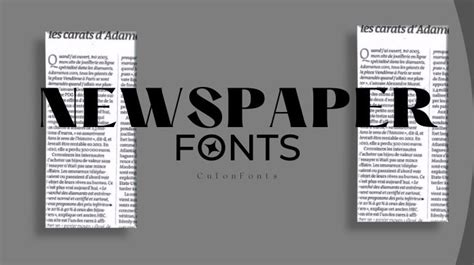
Free Font Downloads For News
Free Font Downloads for News
Hey guys, welcome back! Today, we’re diving deep into the exciting world of news fonts . You know, those killer typefaces you see gracing the headlines of your favorite newspapers and online publications. Ever wondered where you can snag some awesome fonts for your own news-related projects without breaking the bank? Well, you’re in the right place! Finding the perfect news font download free can be a game-changer. It’s not just about making your content look pretty; it’s about conveying the right tone, grabbing attention, and ensuring readability. Think about it – a bold, impactful font can scream urgency and importance, while a more classic, serif font might evoke a sense of trust and tradition. The font you choose speaks volumes before a single word is even read.
We’re going to explore a bunch of fantastic resources where you can download high-quality fonts for free. Whether you’re a budding journalist, a blogger, a graphic designer working on a news outlet’s branding, or just someone who loves playing with typography, this guide is packed with value. We’ll cover everything from where to find them, what to look for in a good news font, and some top picks that are absolute must-haves for your digital toolkit. So, buckle up, and let’s get your content looking sharp and professional with some amazing free fonts!
Why Choosing the Right News Font Matters
Alright, let’s chat about why the font you pick for your news content is such a big deal. Seriously, guys, it’s way more than just aesthetics. Think about the last time you saw a headline that just popped . Chances are, it was a combination of compelling words and a killer font. News font download free options are plentiful, but not all fonts are created equal, especially when it comes to the demands of news reporting. The primary goal of news is to inform, and your typography needs to support that mission. Readability is king here. Imagine trying to read a breaking news article riddled with tiny, ornate script fonts – it would be a nightmare! Your audience needs to be able to scan headlines quickly and read body text comfortably, even on smaller screens. This is where sans-serif fonts often shine, with their clean lines and straightforward appearance. They are generally easier to read at small sizes and across various digital platforms. On the other hand, serif fonts, with their little decorative strokes, can add a touch of gravitas and authority, making them a solid choice for more formal publications or opinion pieces. The contrast between headlines and body text is also crucial. A strong, attention-grabbing font for the headline can immediately signal the importance of the story, while a more subdued, highly readable font for the main content ensures the message gets across clearly without distraction. Color and weight also play huge roles. A bold weight can create emphasis, while italics can be used for specific purposes like quotes or foreign words. Ultimately, the font you choose sets the tone and influences how your audience perceives the information. It’s about building trust, establishing credibility, and making your content accessible to everyone. So, investing a little time to find the right font, even a free news font download , can make a massive difference in how your message is received and remembered. It’s the unsung hero of effective communication in the fast-paced world of news.
3. DaFont / UrbanFonts / 1001 Fonts:
These three are similar in that they host a massive amount of fonts, but you need to be a little more careful here, guys. While they offer tons of free news font download options, many are for personal use only. Always, always check the license agreement for each font before using it commercially. That said, these sites are incredible for exploring different styles and finding unique, sometimes quirky, fonts that might not be on the bigger platforms. You can find everything from classic newspaper-style serifs to modern, edgy sans-serifs. For news, you might explore categories like ‘Serif’, ‘Sans Serif’, or ‘Display’. Just remember to filter for ‘100% Free’ or check the individual licenses carefully. They are great for brainstorming and finding that perfect, less common font that can make your news content stand out. Think of them as the wild west of free fonts – full of potential, but requires a bit of caution!
4. Behance / Dribbble (Font Foundries):
Don’t underestimate the power of design communities like Behance and Dribbble . Many talented type designers share their work here, and sometimes, they release free versions or full families of their fonts. You often have to do a bit more digging, searching for terms like “free font,” “typeface,” or “font family,” but the rewards can be huge. Designers often release these free fonts as a way to showcase their skills, and you can find some incredibly unique and professionally crafted typefaces. Keep an eye out for designers who explicitly state the font is free for commercial use. It’s a fantastic way to discover cutting-edge typography that hasn’t hit the mainstream yet. This is where you might find that distinctive font that gives your news outlet a truly unique visual identity. Just remember to verify the licensing – sometimes the free version is a demo, or limited in some way.
Top Free Fonts for News Content: Our Picks!
Alright, we’ve talked about why fonts matter and where to find them. Now, let’s get to the good stuff: specific font recommendations! When you’re looking for a free news font download , you want something that screams professionalism, readability, and impact. These are fonts that have been tried and tested in the news world, and thankfully, they’re available for free. We’ve picked a mix of serif and sans-serif styles to give you versatility for headlines, subheadings, and body text. Get ready to add some serious powerhouses to your typography arsenal, guys!
Sans-Serif Fonts: Clean, Clear, and Modern
Sans-serif fonts are often the backbone of modern news design due to their incredible readability, especially on screens. They lack the small decorative strokes (serifs) found on serif fonts, giving them a clean, uncluttered look. This makes them perfect for scanning quickly, which is essential for news consumption.
1. Roboto (Google Fonts):
Why we love it: Roboto is the quintessential modern sans-serif. Developed by Google, it’s designed to be neutral and highly readable across all platforms and screen sizes. It strikes a beautiful balance between geometric shapes and friendly, open curves. It feels contemporary without being trendy, meaning it won’t look dated quickly. Roboto comes in a huge range of weights, from Thin to Black, offering incredible flexibility. For news, the Regular and Medium weights are fantastic for body text, while Bold or Black can make headlines pop. Its clean lines ensure legibility even at smaller sizes, making it ideal for online news articles, mobile apps, and even infographics. You can download Roboto free from Google Fonts. It’s the kind of font that just works , no matter the context, making it a go-to for many designers and news outlets.
2. Open Sans (Google Fonts):
Why we love it: Another Google Fonts superstar, Open Sans is renowned for its humanist characteristics, meaning it feels a bit more natural and less mechanical than some other sans-serifs. Its optimized legibility, even in unfamiliar situations or with less-than-ideal display resolutions, makes it a top choice for news. It has a friendly, approachable feel, which can be great for building reader connection. Like Roboto, it offers a comprehensive set of weights and styles. Use its lighter weights for subheadings and its bolder counterparts for impactful headlines. It’s versatile enough for everything from digital news sites to print publications. The availability of a free news font download for Open Sans is a huge win for content creators on a budget.
3. Lato (Google Fonts):
Why we love it: Lato, which means “summer” in Polish, has a warm, semi-rounded feel that makes it incredibly inviting. It’s simultaneously classic and modern. While it feels structured and serious enough for news, its subtle curves give it a touch of personality that keeps it from feeling sterile. It has excellent clarity and is available in various weights, making it suitable for everything from main headlines to small print captions. If you’re aiming for a clean, approachable, and highly readable news site, Lato is a phenomenal free font download option. It’s robust and reliable, much like good journalism should be!
4. Montserrat (Font Squirrel):
Why we love it: Inspired by the old posters and signs in the traditional Montserrat neighborhood of Buenos Aires, this font has a geometric, urban feel. It’s strong, distinctive, and comes in a wide array of weights. Montserrat is particularly effective for headlines because of its bold presence. It feels modern and sophisticated, perfect for a news outlet that wants to project a contemporary image. While its bolder weights are excellent for display, its lighter weights can also work for shorter blocks of text. Font Squirrel makes it easy to download Montserrat free for commercial use, so you can confidently use it across your news projects.
Serif Fonts: Authority, Tradition, and Readability
Serif fonts bring a sense of tradition, authority, and timelessness to any design. They often evoke a feeling of trust and gravitas, making them a classic choice for many established news publications. While sometimes seen as more traditional, many modern serifs offer excellent readability on screen.
1. Merriweather (Google Fonts):
Why we love it: Merriweather is a typeface designed to be a text face – meaning it’s specifically optimized for reading on screens. It’s a very pleasant serif font that feels familiar yet distinct. It has a slightly condensed structure, which helps fit more text into a line, improving readability in dense articles. Its sturdy serifs and open counterforms (the enclosed or partially enclosed areas in letters) ensure clarity even at small sizes. It’s perfect for body text in online news articles, especially if you want to lend a more classic or editorial feel. You can download Merriweather free from Google Fonts and use it with confidence. It’s a solid choice for building credibility and providing a comfortable reading experience.
2. Playfair Display (Google Fonts):
Why we love it: If you want a serif font with a bit more flair and elegance, Playfair Display is a fantastic option. It features high contrast between thick and thin strokes, giving it a very fashionable, almost Didone-style look. This makes it absolutely stunning for headlines and titles. It’s particularly good for lifestyle or feature sections of a news site where you want to add a touch of sophistication. While its high contrast might make it less ideal for long body text (especially at small sizes), it’s a star for impactful headlines. Think of it as the font you use when you want your headline to be a statement piece. Grab this free font download from Google Fonts and elevate your news titles!
3. Source Serif Pro (Adobe Fonts / Also available elsewhere):
Why we love it: While technically part of Adobe Fonts (which requires a subscription), Source Serif Pro is often made available freely through other channels or as part of open-source initiatives. It was designed as a companion to the sans-serif Source Sans Pro and shares a similar clarity and readability focus. It’s a highly legible serif that feels modern and clean, avoiding the fussiness of some older serif designs. It’s robust and works well for both headlines and body copy, offering a good balance of tradition and contemporary design. If you can find a free news font download for Source Serif Pro, it’s a seriously strong contender for its versatility and professional feel. It’s designed for readability and impact, making it a great asset for any news content creator.
Tips for Using News Fonts Effectively
Okay, guys, you’ve got the fonts, now let’s talk strategy! Simply downloading a bunch of cool fonts isn’t enough. To truly make your news content shine, you need to use these free news font download treasures wisely. It’s all about creating a hierarchy, ensuring readability, and building a consistent visual identity. Think of it like crafting a compelling news story – every element has its purpose and placement.
1. Establish a Clear Hierarchy:
This is super important. Your readers should be able to instantly tell what’s most important. Use different font sizes, weights (bold, regular, light), and even styles (italic) to guide the eye. Headlines should be the biggest and boldest. Subheadings should be smaller than headlines but larger than the body text. Body text needs to be clear and comfortable to read. For example, you might use Montserrat Bold for your main headlines, Lato Italic for pull quotes, and Open Sans Regular for the body copy. This creates a visual roadmap for your readers, making it easy for them to digest information quickly. Don’t be afraid to use contrast!
2. Prioritize Readability Above All Else:
Remember, the main goal is to communicate information. Fancy fonts are great, but if your readers are squinting or struggling to read, you’ve failed. For body text, always opt for clean, legible fonts. Sans-serifs like Roboto or Open Sans are usually safe bets for digital. If you choose a serif like Merriweather, make sure it’s at a sufficient size and line spacing. Avoid overly decorative fonts, condensed styles for long passages, or text that is too small. Test your fonts on different devices – what looks good on a desktop might be illegible on a mobile phone. Good readability builds trust and keeps readers engaged with your content longer. Never compromise on this, even with a free news font download !
3. Create a Consistent Visual Identity:
Whether you’re running a large news organization or a personal blog, consistency is key to building a recognizable brand. Choose a small set of fonts (maybe 2-3) and stick with them. Use your chosen headline font consistently for all main headlines, your body font for all main text, and perhaps an accent font for specific elements like pull quotes or bylines. This consistency makes your content feel professional and reliable. It helps your audience subconsciously recognize your work. Think about major news outlets – you instantly recognize their style because they use their brand fonts consistently across all platforms. This applies even if you’re just using free font downloads .
4. Utilize Font Pairing:
Mixing and matching fonts can add depth and visual interest, but do it carefully! A common and effective strategy is to pair a serif font with a sans-serif font. For instance, you could use a bold sans-serif like Montserrat for headlines and a highly readable serif like Merriweather for the body text. Or, use a more stylistic serif like Playfair Display for headlines and a clean sans-serif like Roboto for subheadings and body text. The key is contrast and harmony. The fonts should complement each other, not clash. Resources like Google Fonts make it easy to see font pairings, and many designers share their favorite pairings online. This technique can really elevate the professional look of your news content.
5. Test, Test, and Test Again:
Before you go live with your new look, always test your typography. View your content on different screen sizes (desktop, tablet, mobile). Print out a page to check how it looks on paper. Ask friends or colleagues for their feedback. Sometimes, a font that looks great in the previewer might behave unexpectedly in a real-world application. Pay attention to how lines break, how spacing looks, and whether any characters are easily confused. This final check ensures that your news font download free choices are not only aesthetically pleasing but also highly functional and accessible to your entire audience. It’s the final polish that makes all the difference.
Conclusion: Elevate Your News Content with Free Fonts!
So there you have it, guys! Finding and using the right typography can seriously transform your news content from drab to fab. We’ve explored why choosing the perfect news font is crucial for readability and impact, where to find amazing news font download free options like Google Fonts and Font Squirrel, and highlighted some of our top picks like Roboto, Open Sans, Merriweather, and Playfair Display. Remember, great design isn’t just for the big players; with the wealth of free resources available today, anyone can create professional-looking news articles, blog posts, or websites. Don’t underestimate the power of a well-chosen font to capture attention, convey authority, and make your stories accessible to a wider audience. So go ahead, explore these resources, download some fantastic fonts, and start experimenting! Your readers will thank you for it. Happy designing!